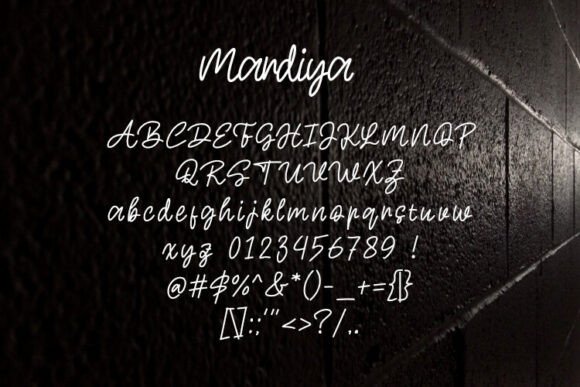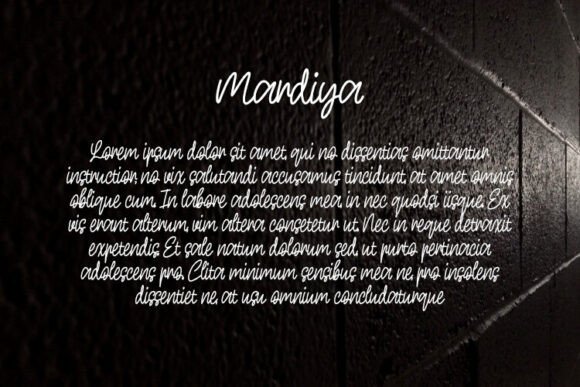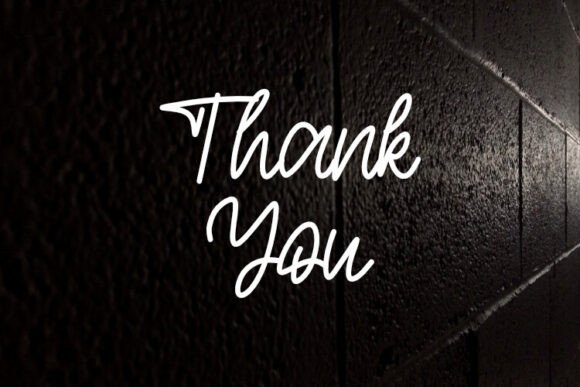
Introduction to Mardiya Font
Unveil the charm of β€œMardiya”, a versatile font designed to breathe life into your apparel designs.
Whether you’re conjuring new styles for garments, t-shirts, or a myriad of other products, β€œMardiya” is your creative companion Its compatibility with all design software and the inclusion of an OTF file ensures seamless integrations to make your designing process as smooth as possible.
Key Features of Mardiya Font
Why Choose Mardiya Font?
Mardiya Font offers exceptional quality and versatility, making it a valuable addition to your design toolkit. Whether you’re creating for personal projects or commercial use, Mardiya Font delivers professional results.